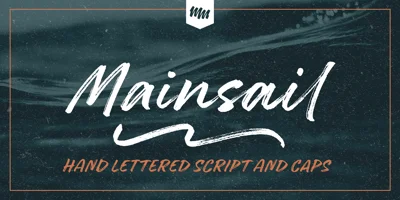
Mainsail Font is perfect for nautical design projects including sailing club branding, yacht charter companies, marine equipment catalogs, regatta event promotions, waterfront restaurant menus, boat dealership materials, sailing school signage, and oceanic adventure campaigns. This adventurous typeface excels in marina development projects, sailing magazine layouts, nautical fashion brands, maritime tourism promotions, and designs celebrating the freedom and excitement of sailing adventures.
What makes Mainsail Font exciting is its dynamic sailing character that perfectly captures the essence of wind-powered adventure and maritime freedom. The font features flowing letterforms with graceful curves that mirror the movement of billowing sails and ocean breezes. Its energetic design elements reflect the exhilaration and spirit of sailing, making it perfect for projects that need to convey adventure, freedom, and connection to the sea. The carefully crafted proportions create a sense of movement and wind-driven energy that inspires wanderlust and oceanic exploration.
Mainsail Font comes in multiple family variations including light, regular, medium, bold, and windy styles. Each weight maintains the distinctive sailing character while offering different levels of visual momentum and nautical presence. The font family includes sail-inspired alternates, maritime ligatures, and oceanic variations that provide designers with comprehensive options for creating truly adventurous and wind-swept typographic compositions that capture sailing excitement.
Whether you're designing sailing branding, creating maritime marketing materials, or developing nautical promotional graphics, Mainsail Font provides the perfect typographic vessel for projects that celebrate sailing excellence and oceanic adventure. This exceptional typeface transforms ordinary text into compelling invitations to explore the open seas and embrace sailing freedom. Download this remarkable font today and set sail with your design projects using typography that harnesses the wind and captures the boundless spirit of maritime adventure.